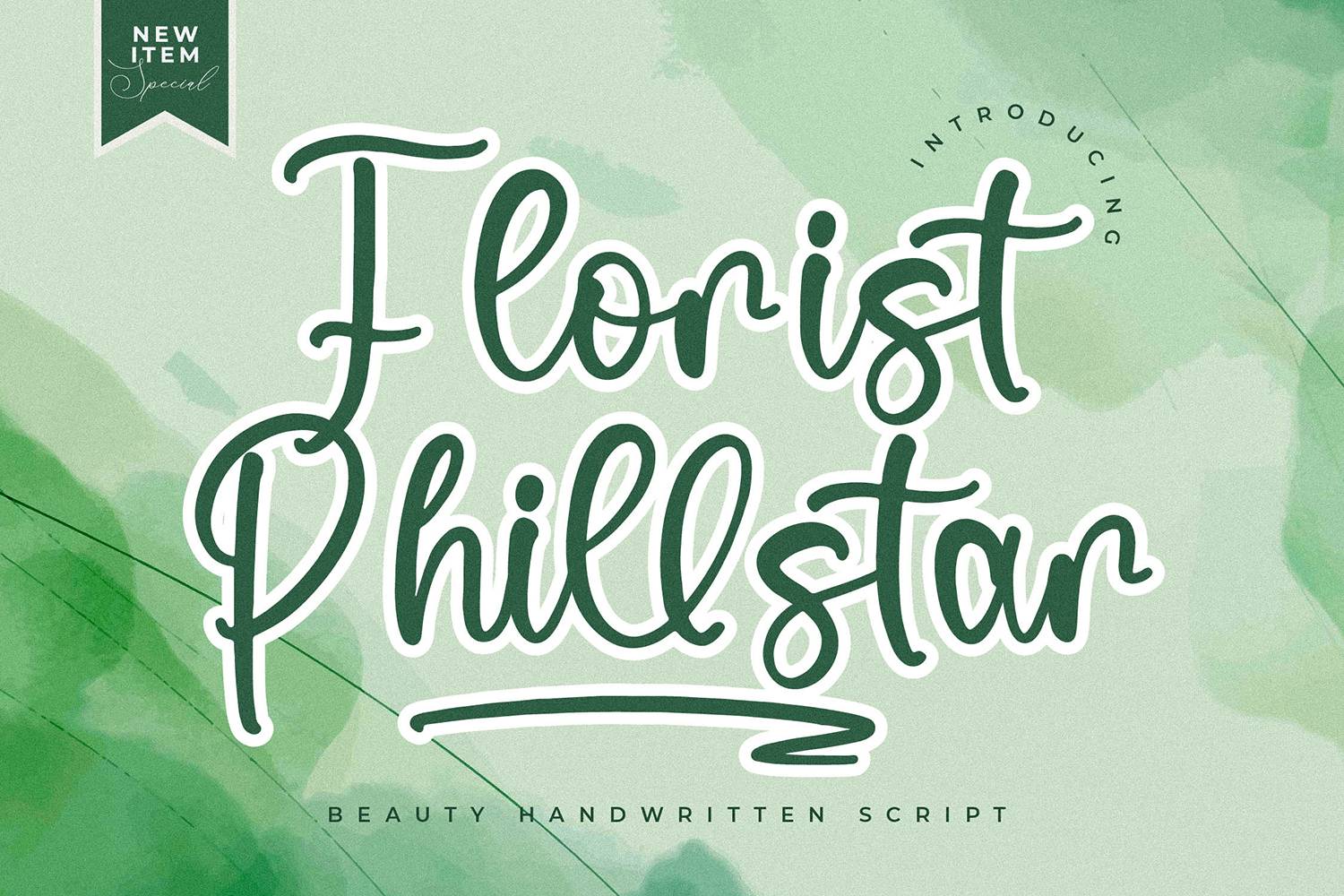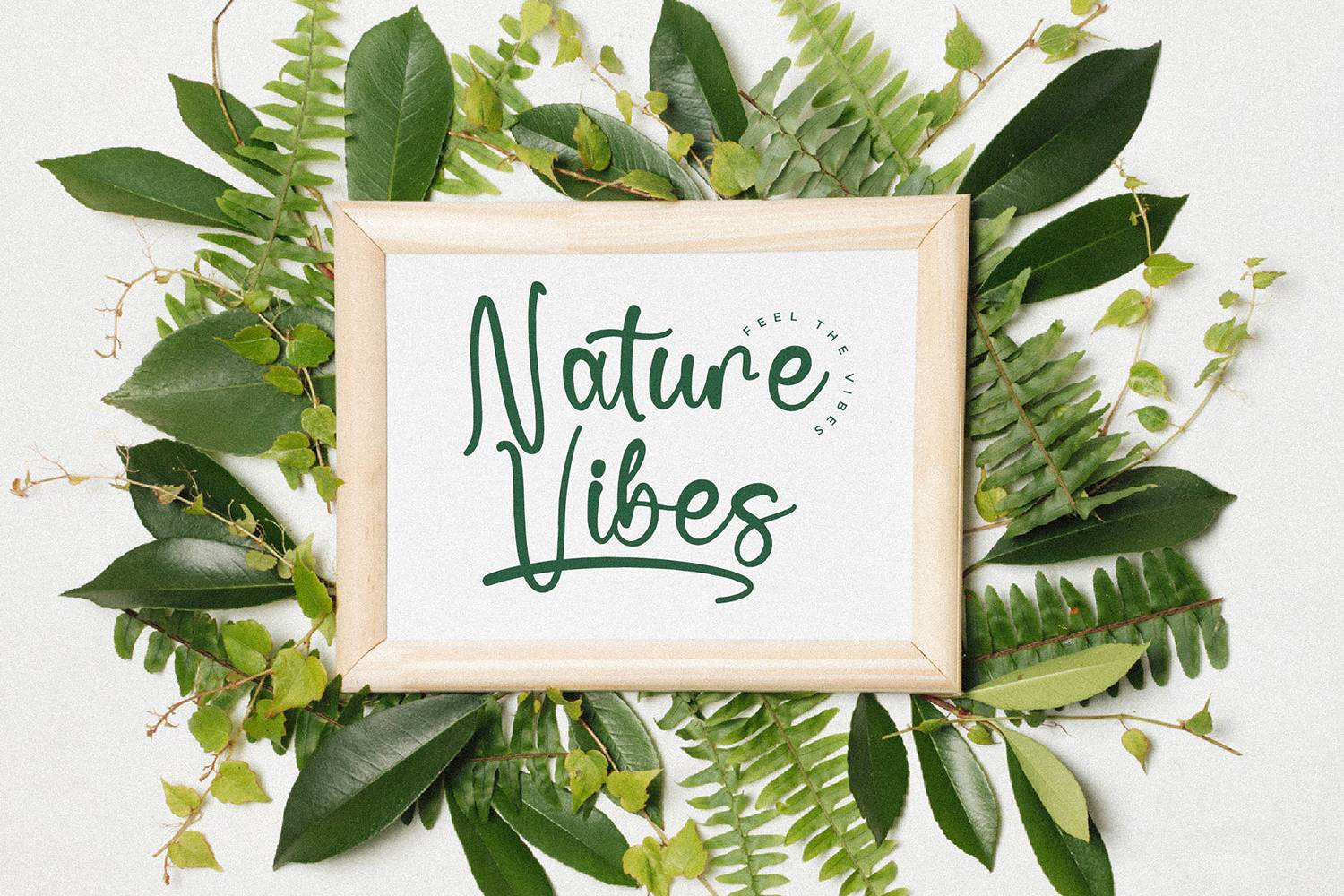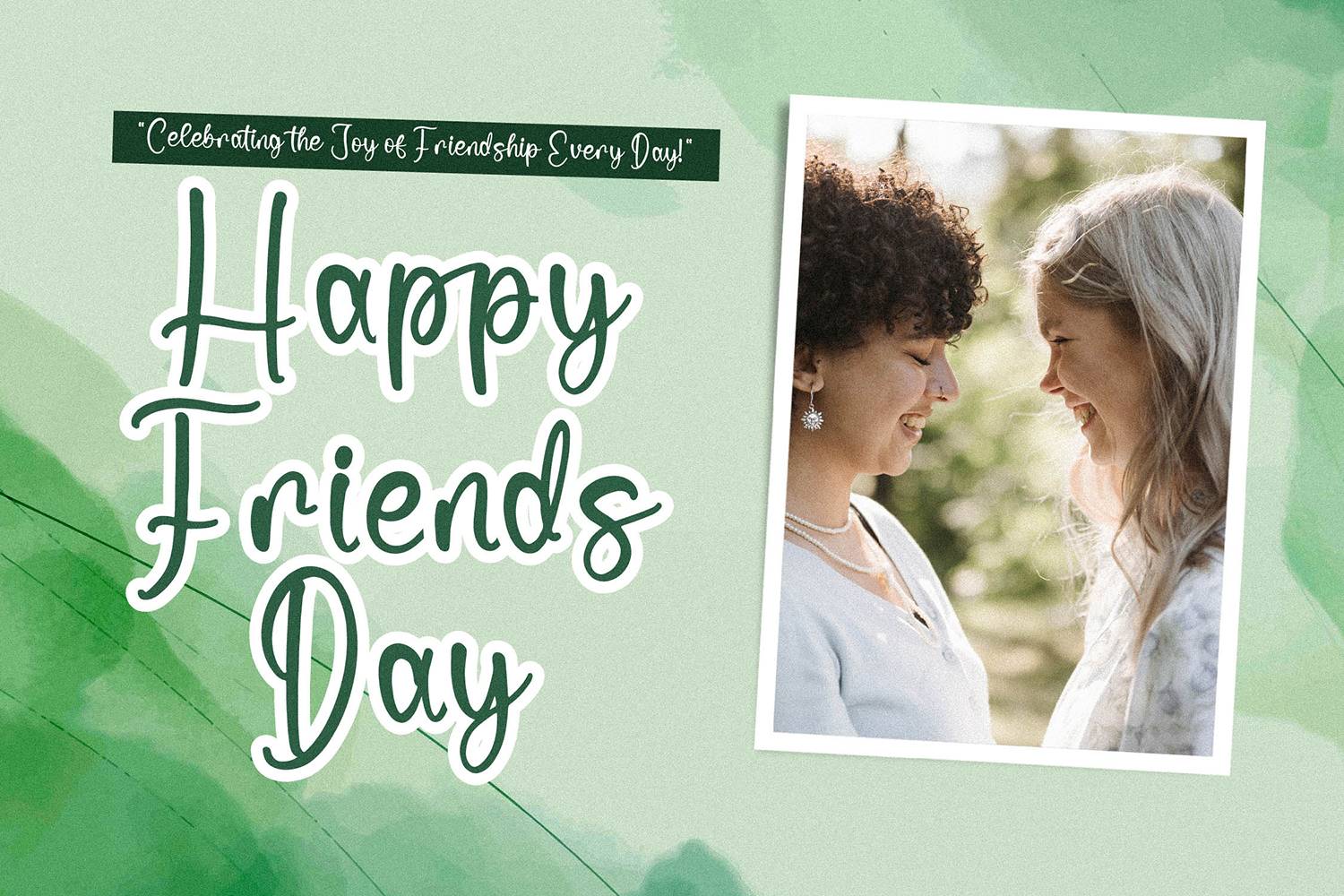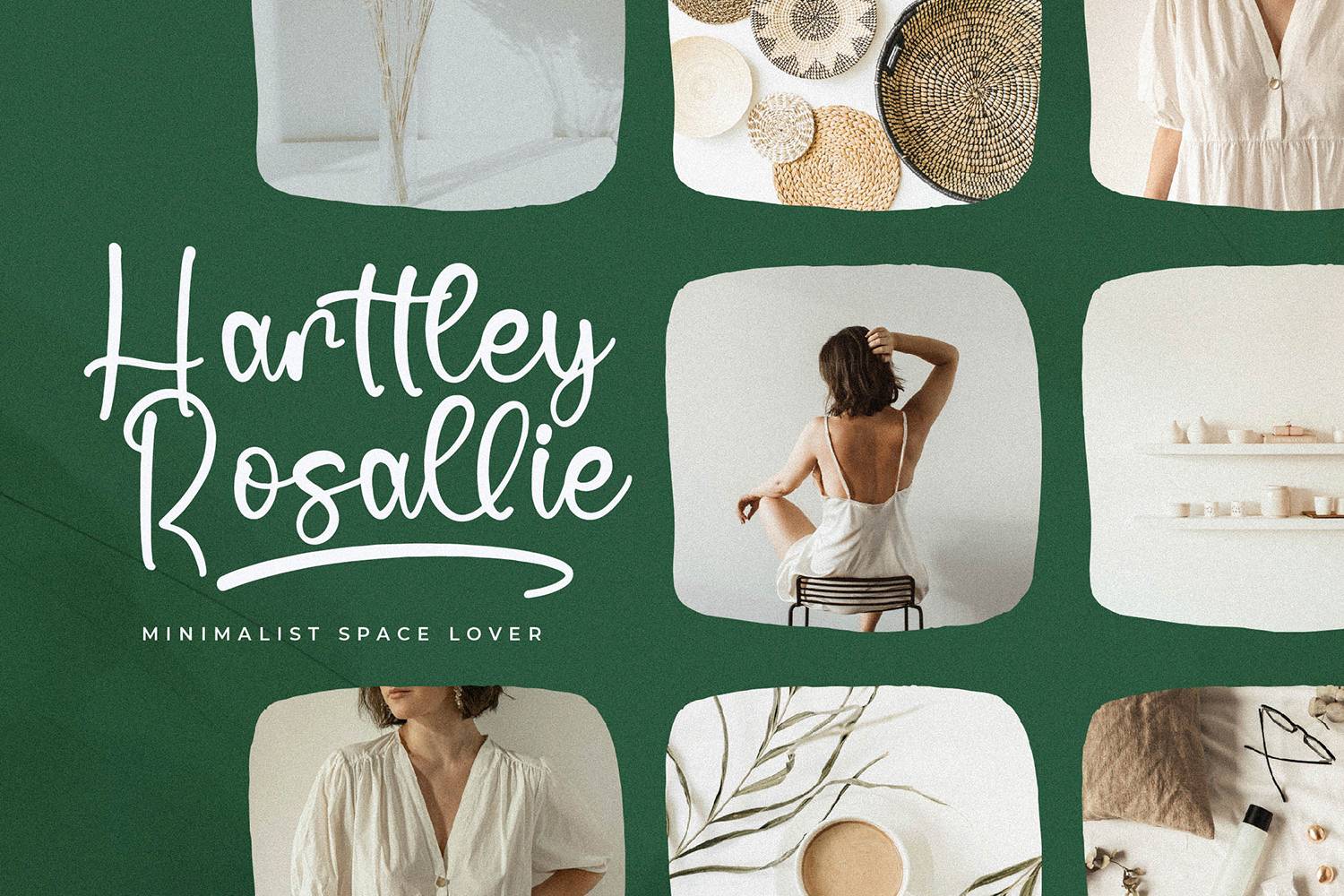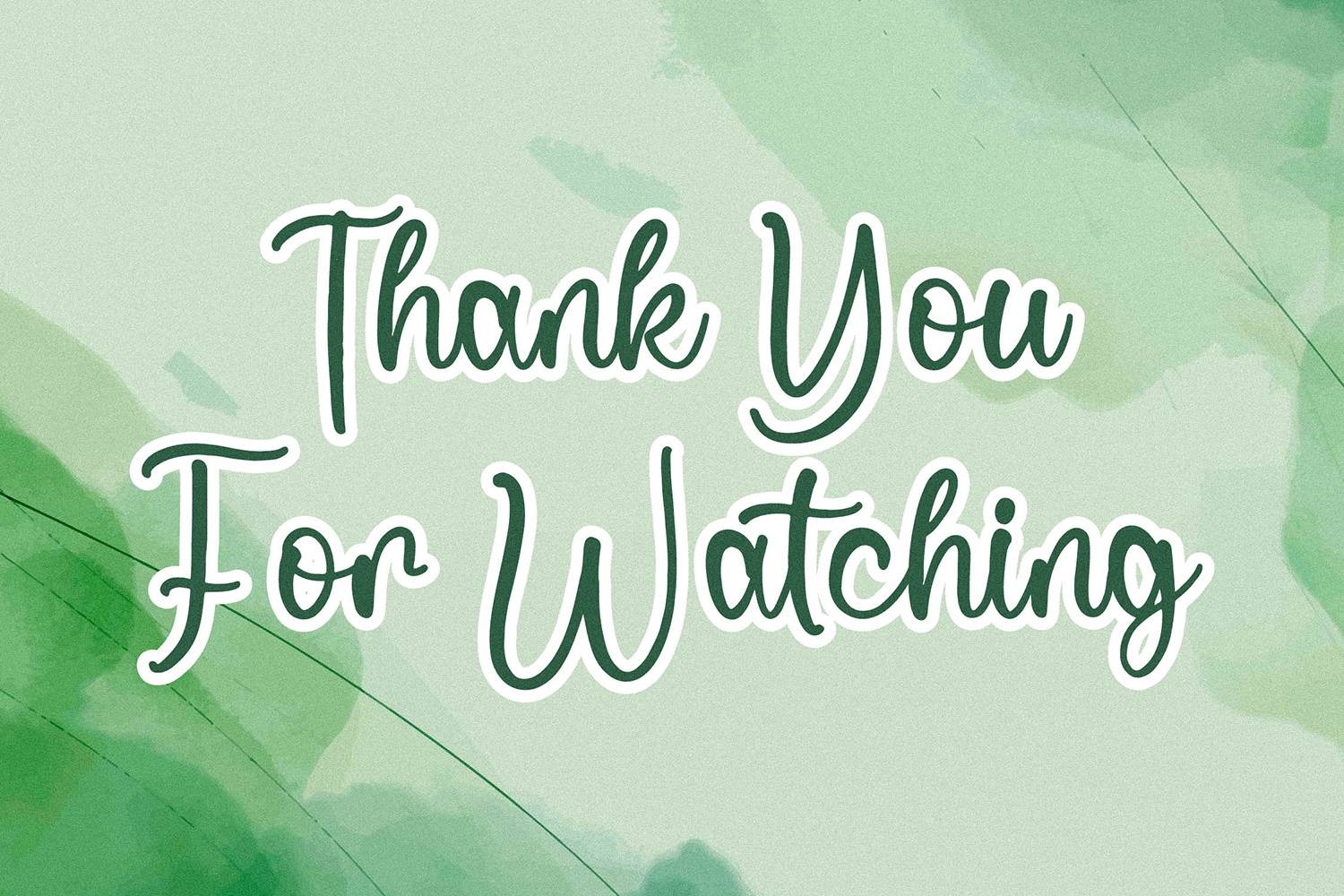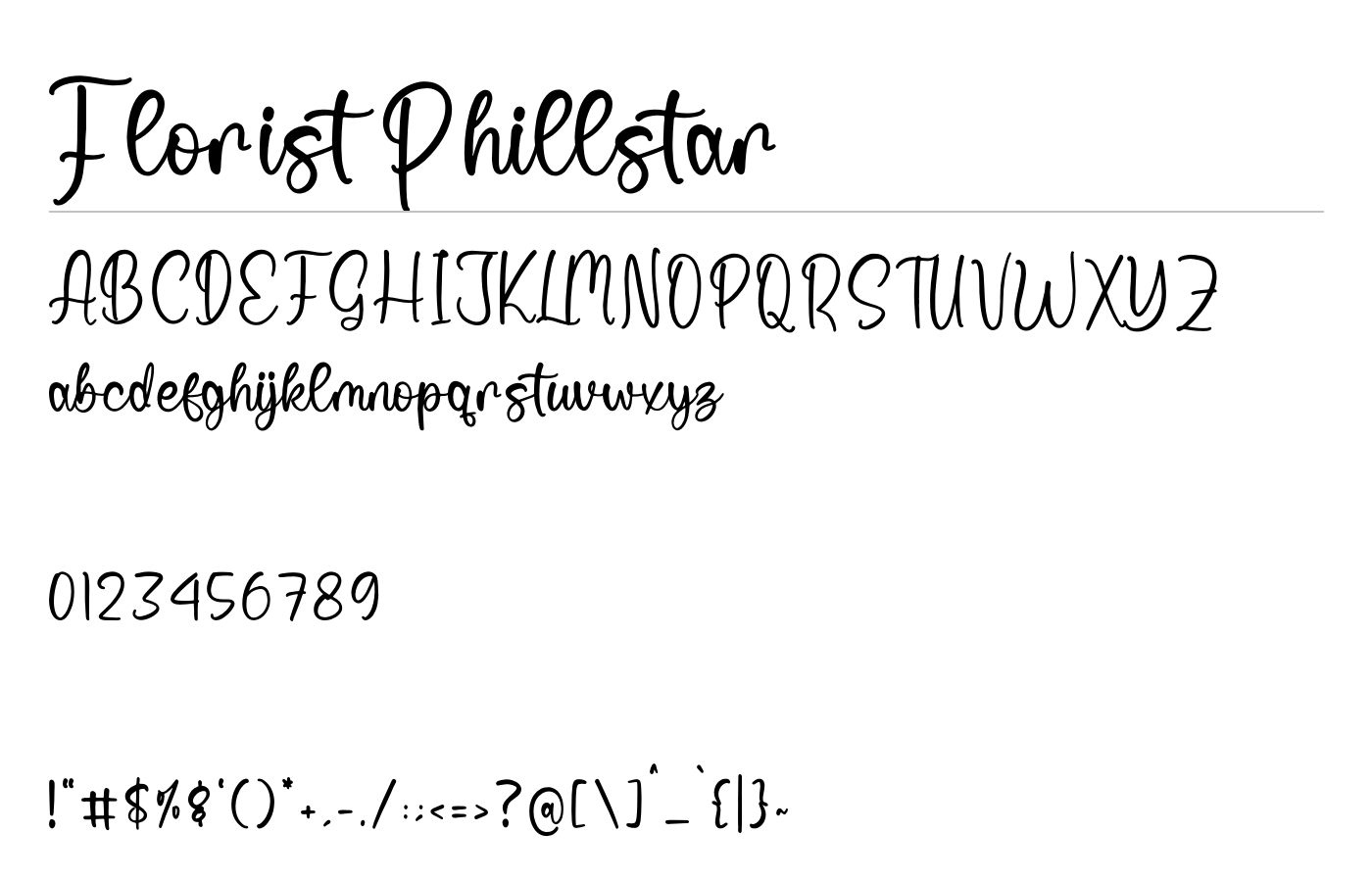
Florist Phillstar is a playful and charming handwritten script font with a casual, friendly feel. Its slender strokes and slightly irregular letterforms give it a warm, approachable personality perfect for personal and creative projects. This font works beautifully for invitations, branding, and social media designs looking to convey a natural, handcrafted touch.
Florist Phillstar Font
About Florist Phillstar Font